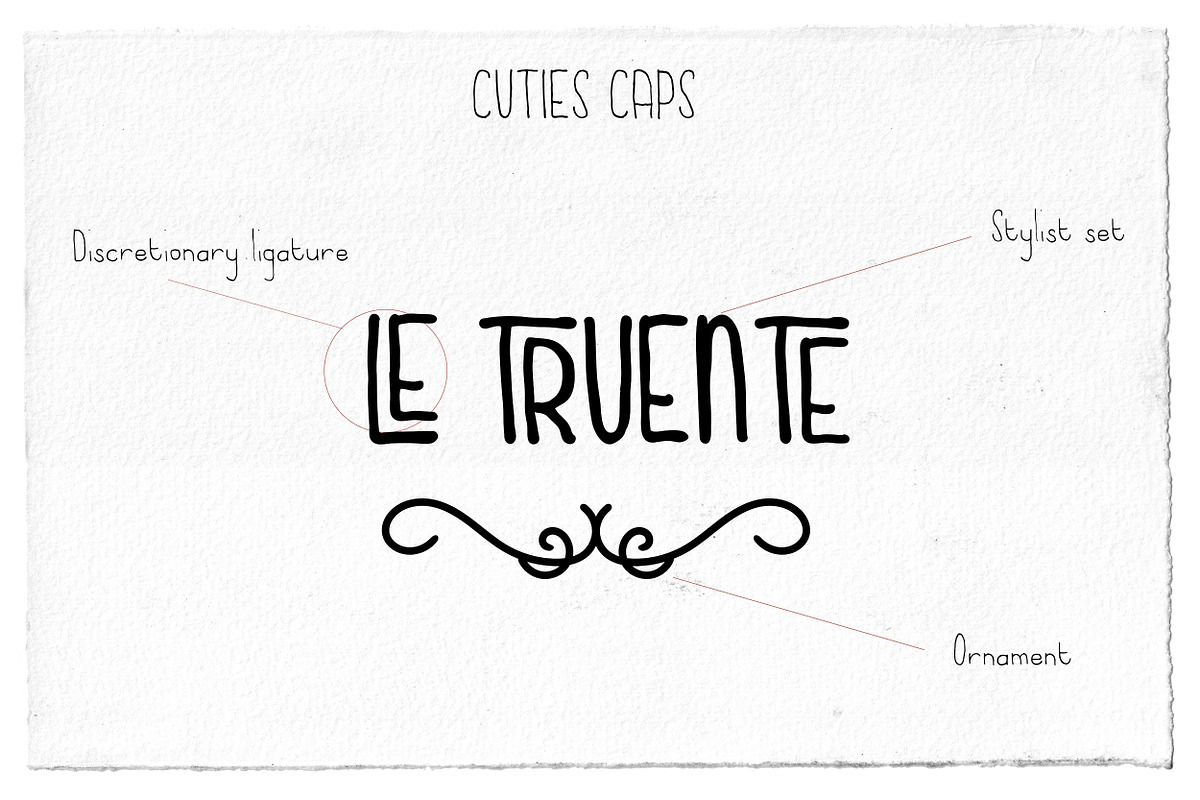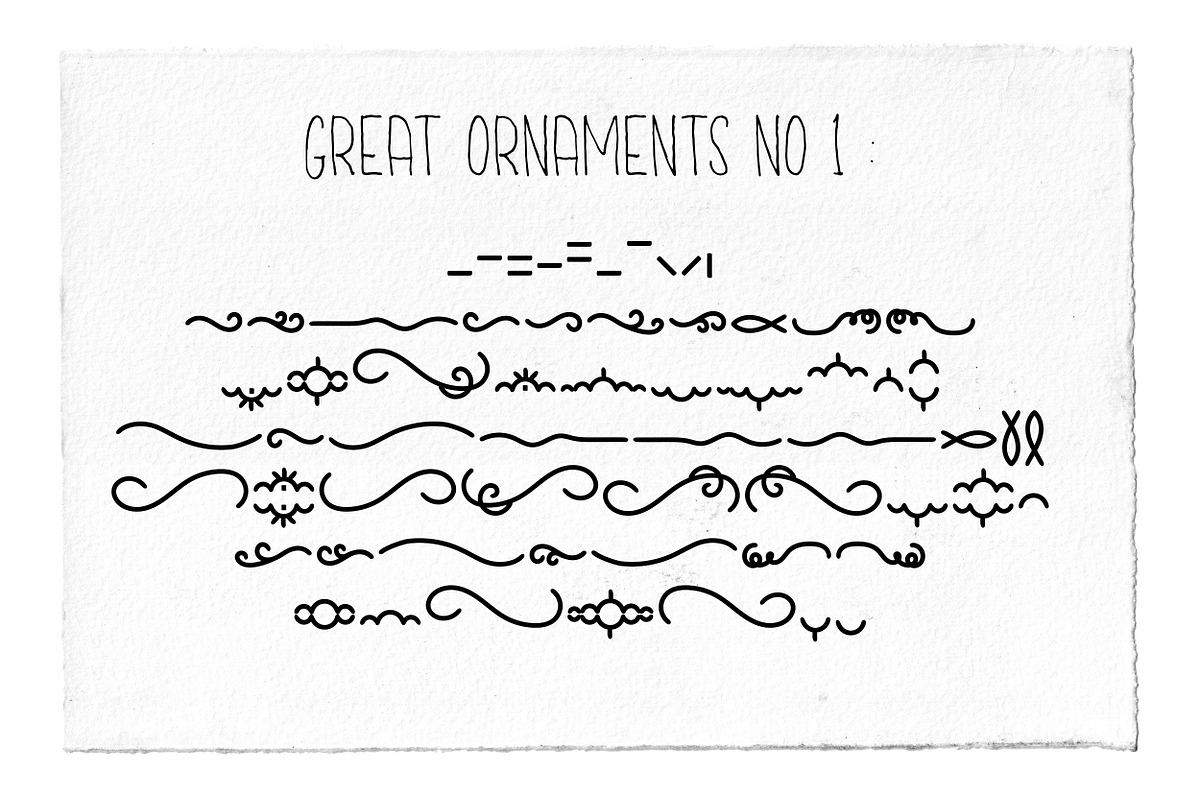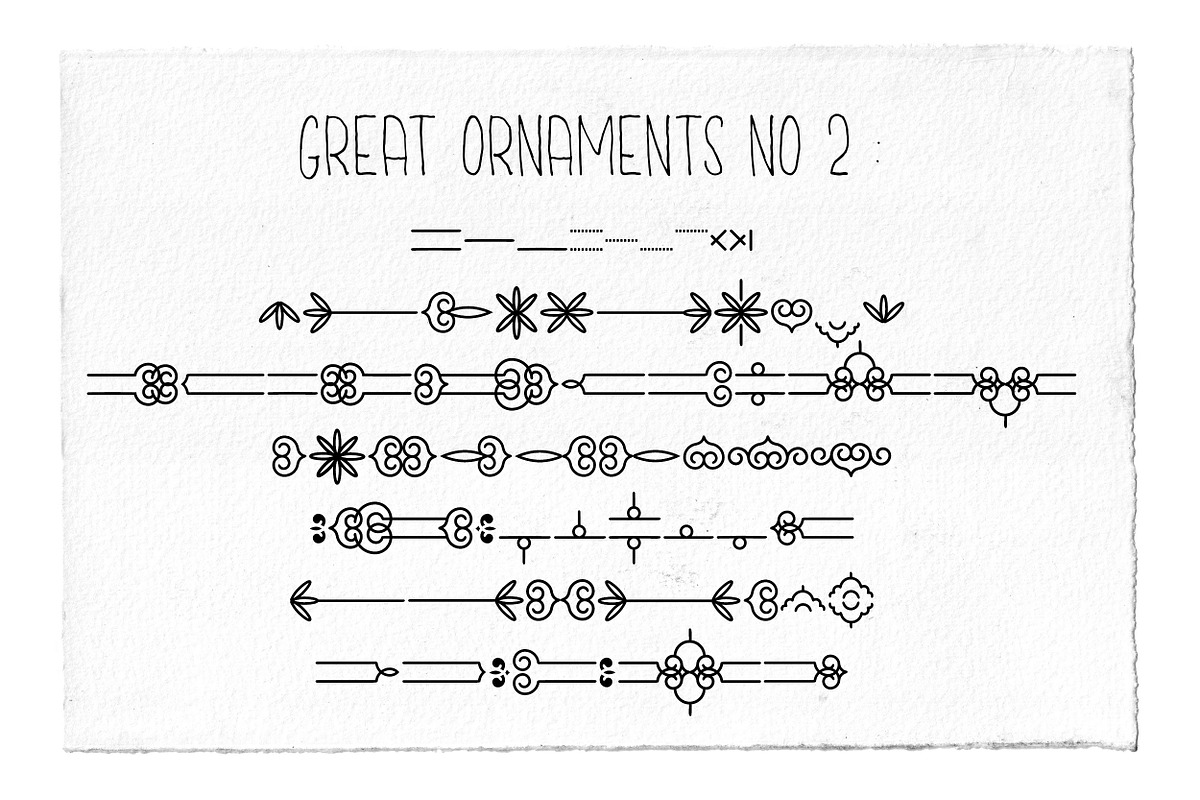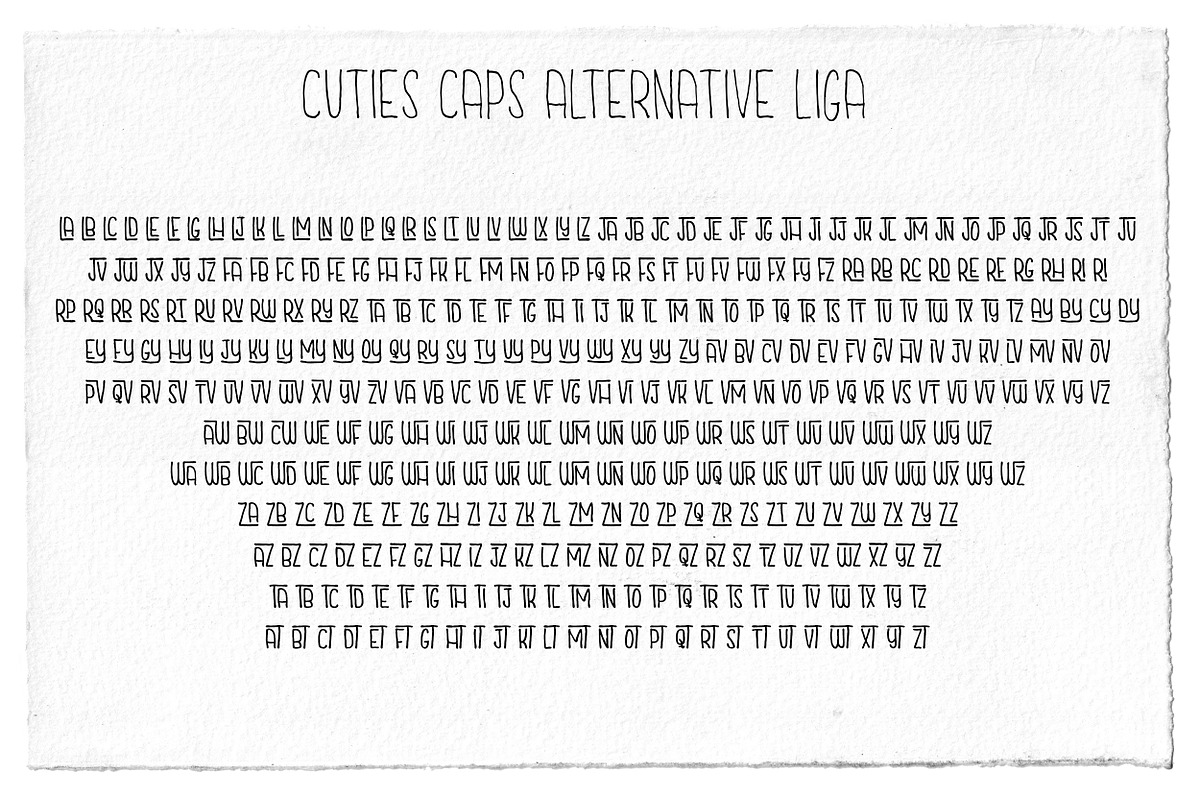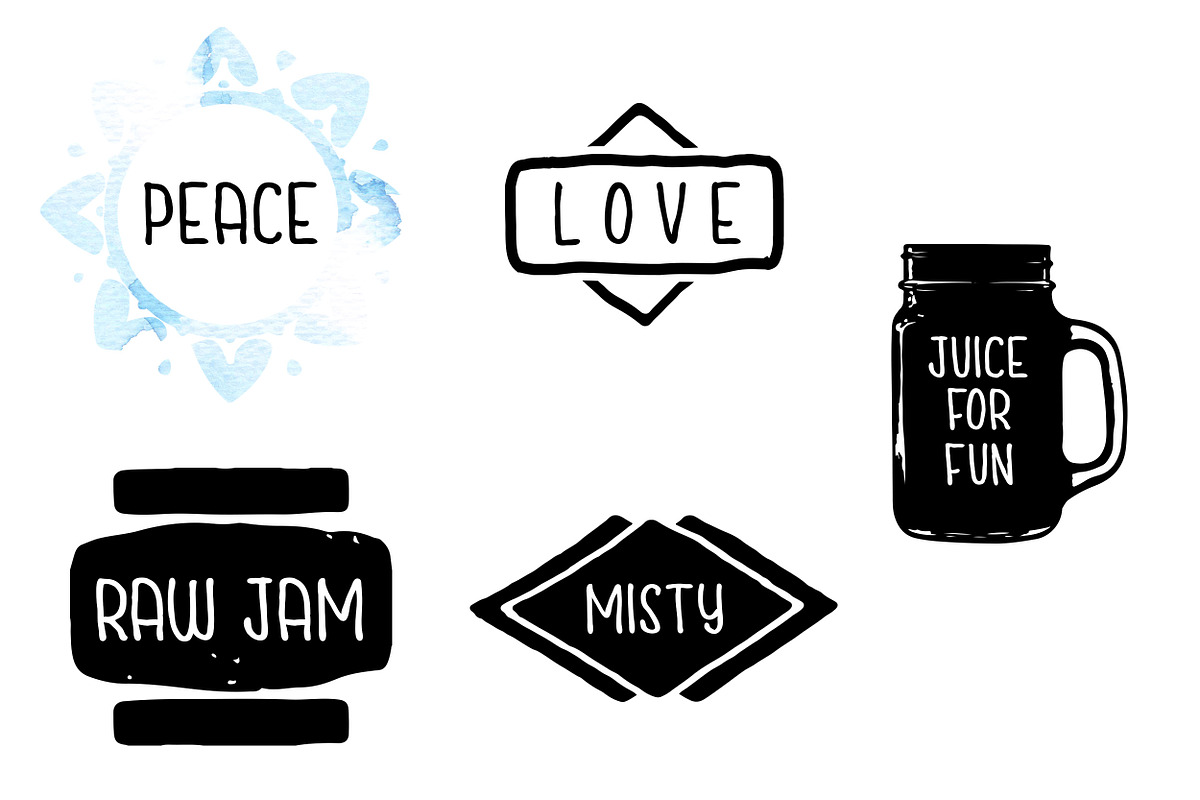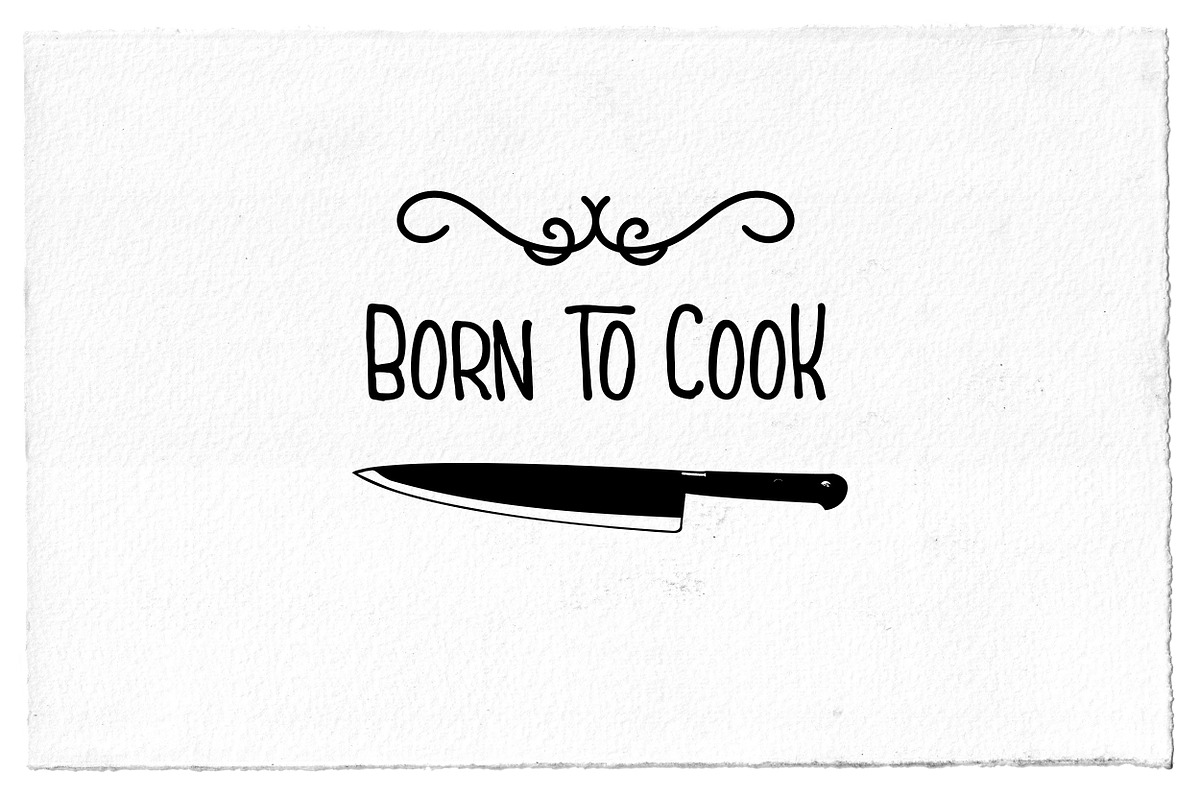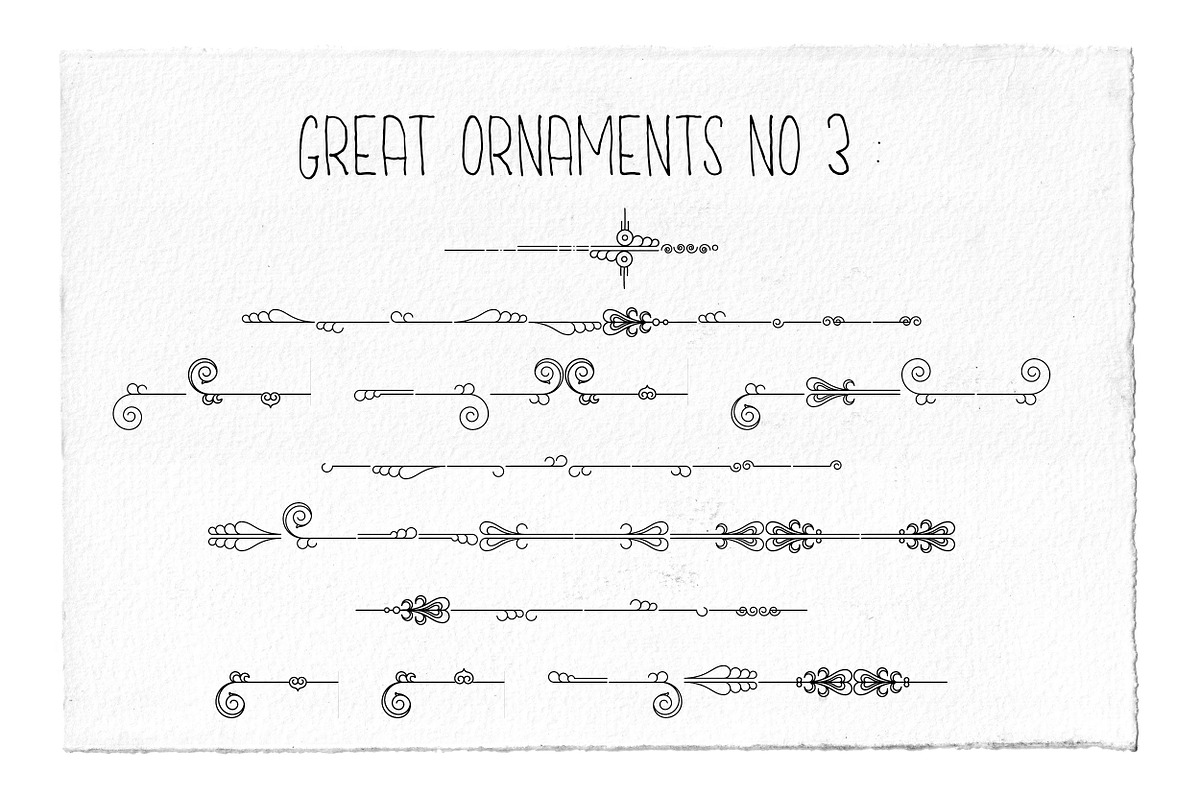
The Cuties family
Introducing the new ‘CUTIES FAMILY’ script font - A simple readable new ink marker font script with some great ornament extra:) 'CUTIES FAMILY' font was created to look more simple and readable, with more than 100 glyphs and ligatures .... 'what is in?'
- Cuties Caps
- Big Cuties regular
- Big Cuties Bold
- Big Cuties italic
- Big Cuties Italic Bold
- Great Ornament no 1
- Great Ornament no 2
- Great Ornament no 3